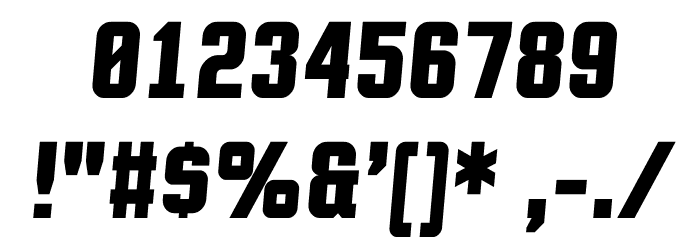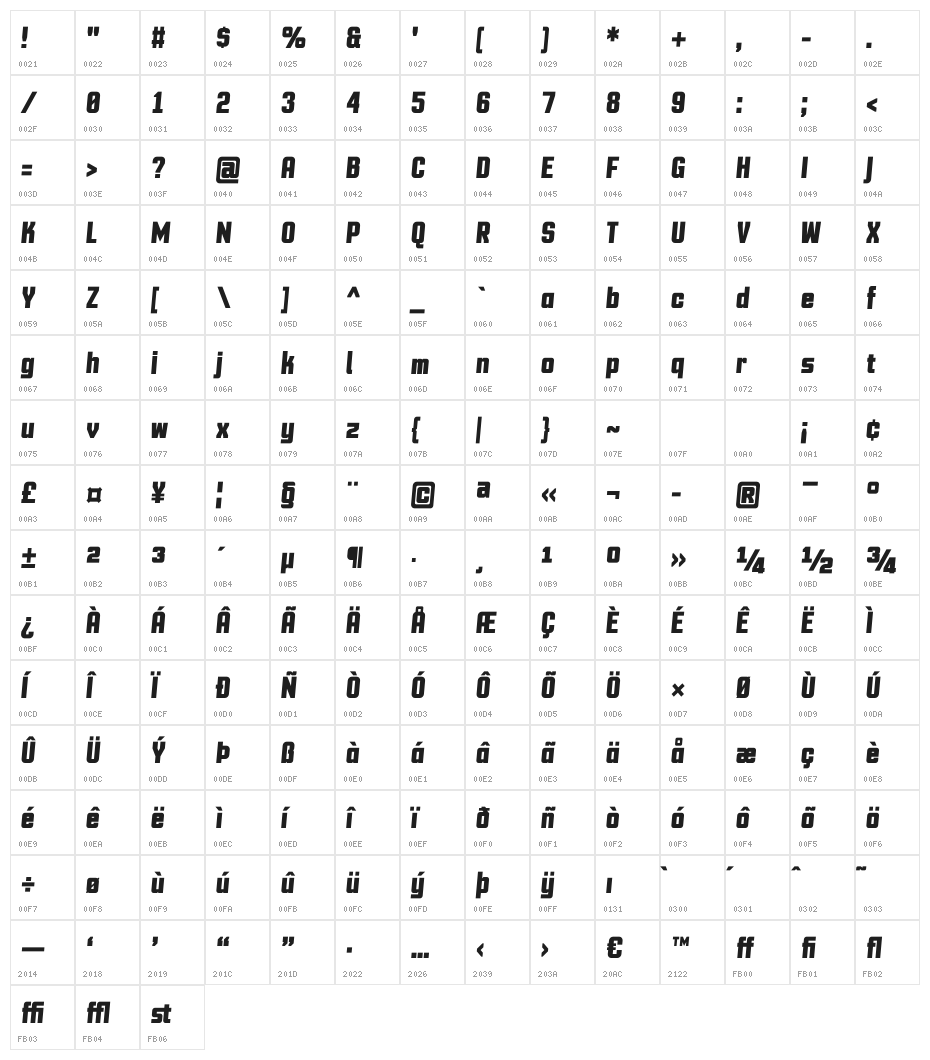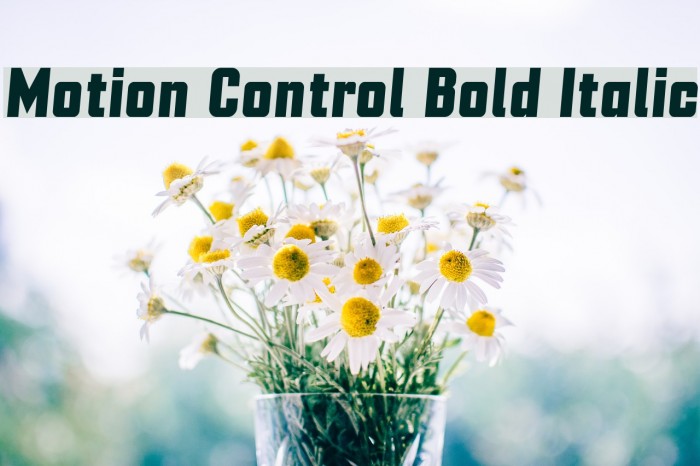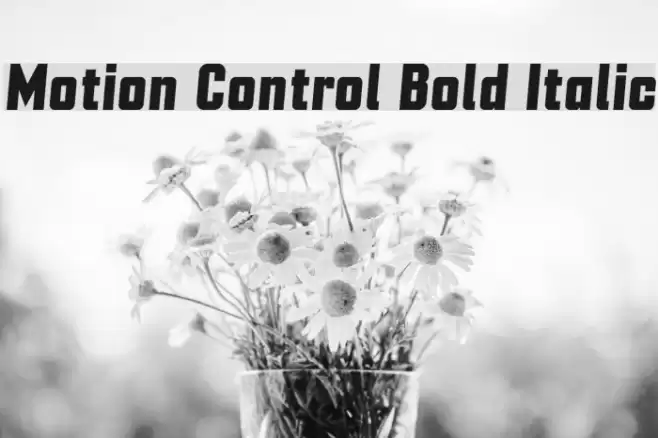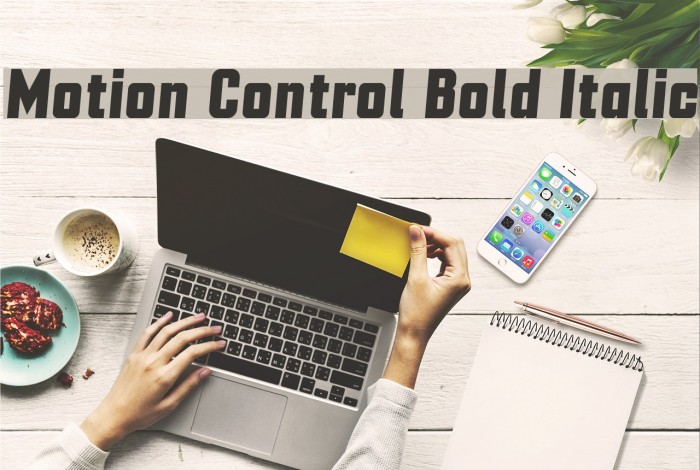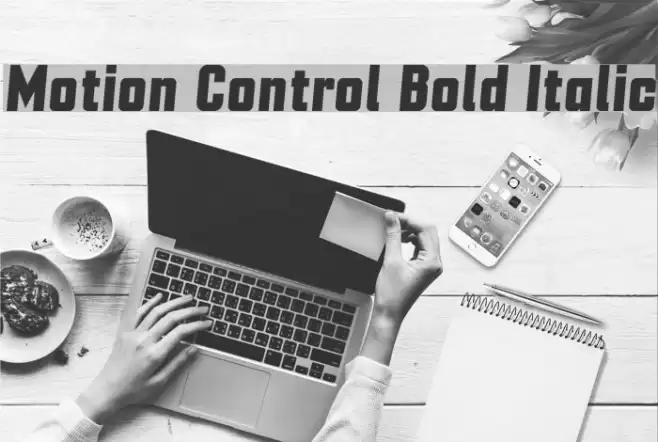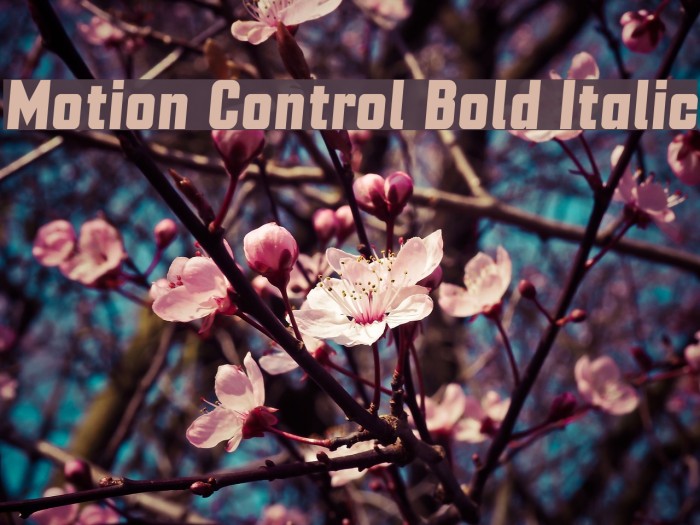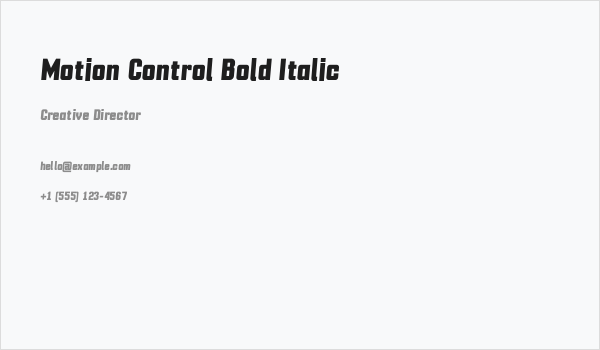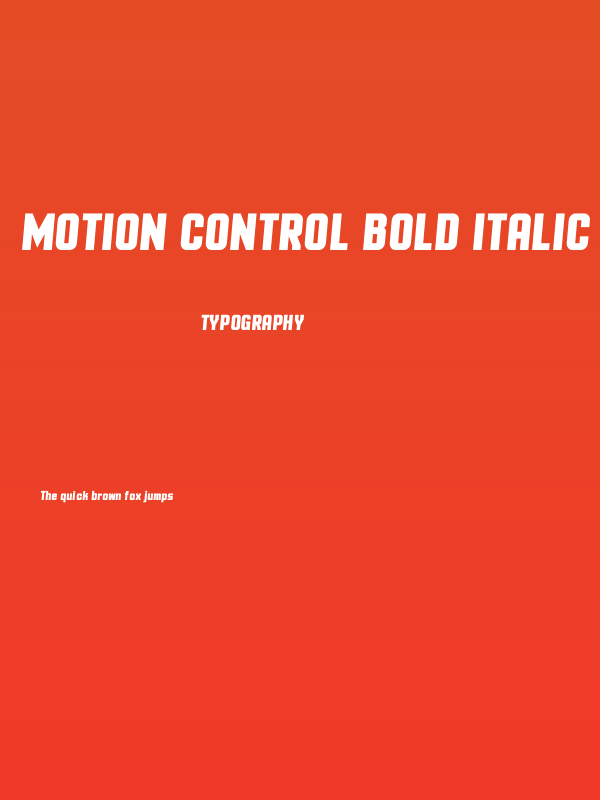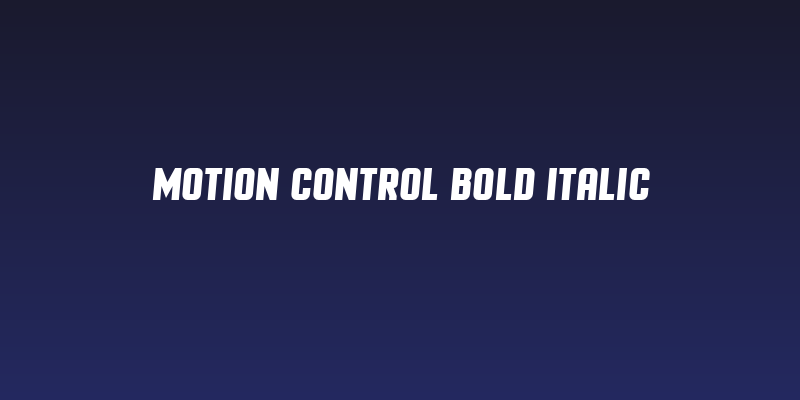
Motion Control Bold Italic Font
Motion Control Bold Italic Description
This font exhibits a bold and dynamic style with a strong italic slant, giving it a sense of motion and energy. The characters are robust and impactful, featuring a consistent stroke width that enhances readability while maintaining a modern aesthetic. The uppercase and lowercase letters are well-proportioned, and the numbers are clear and distinct. Special characters are designed to match the overall boldness, making them stand out effectively. This font is ideal for projects that require a strong visual presence and a contemporary feel.
| Proposed Projects | Ideal for sports branding, dynamic posters, modern advertising, and impactful headlines. |